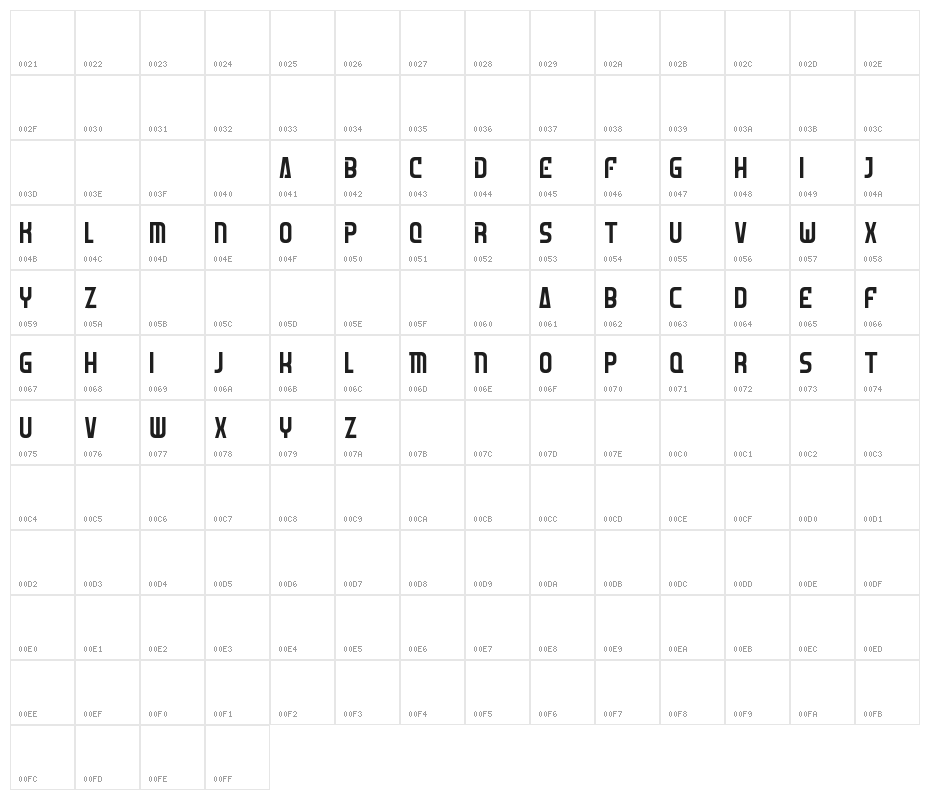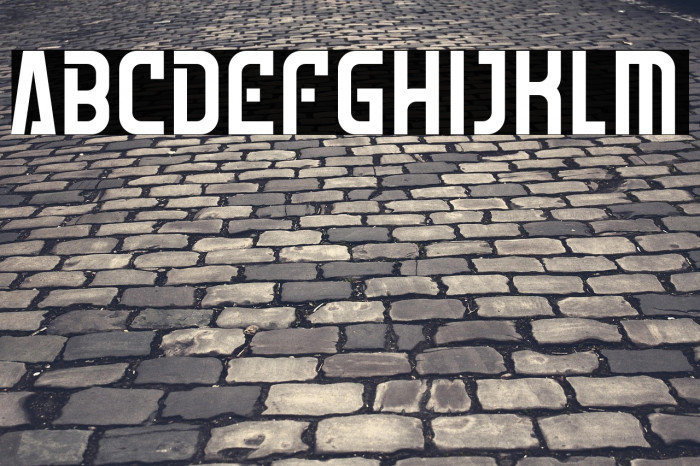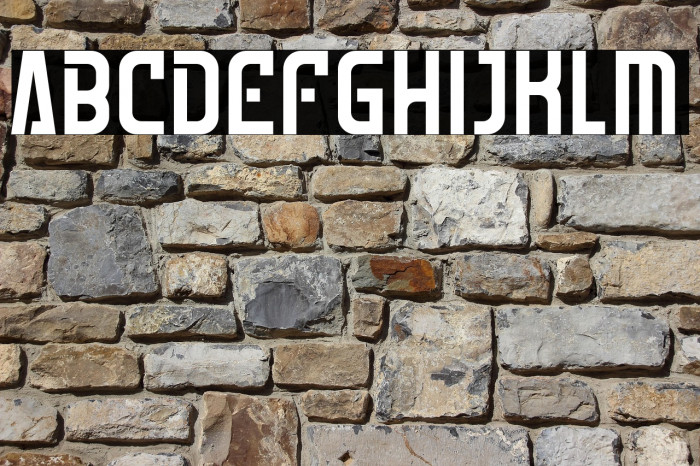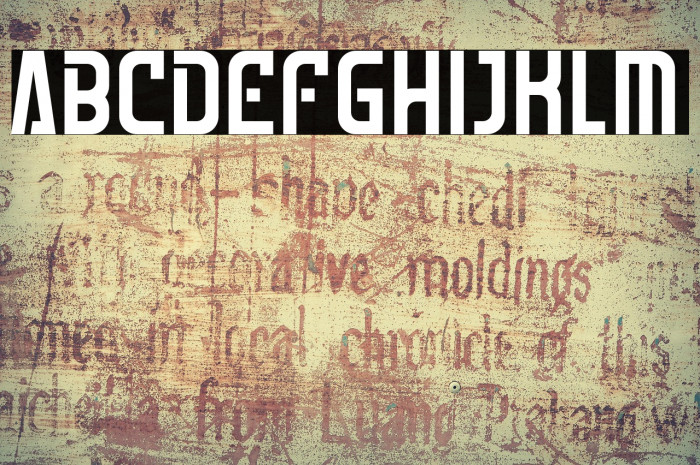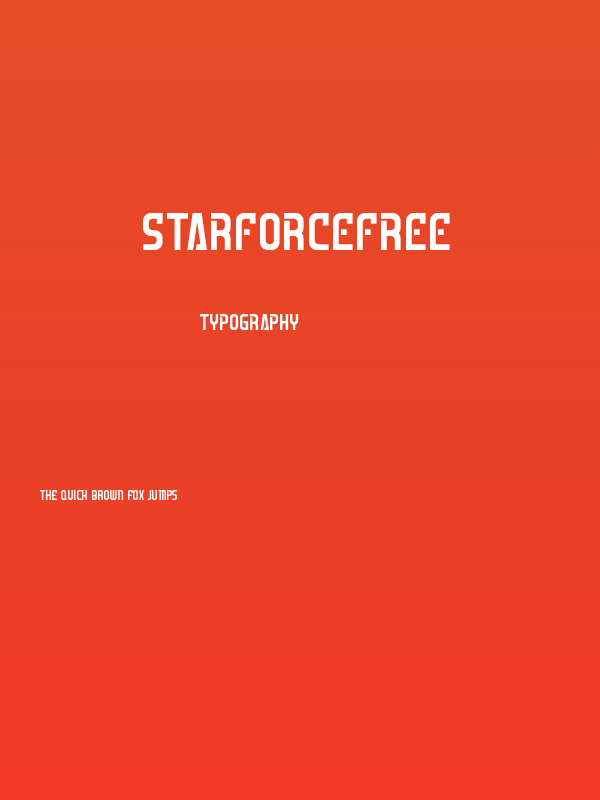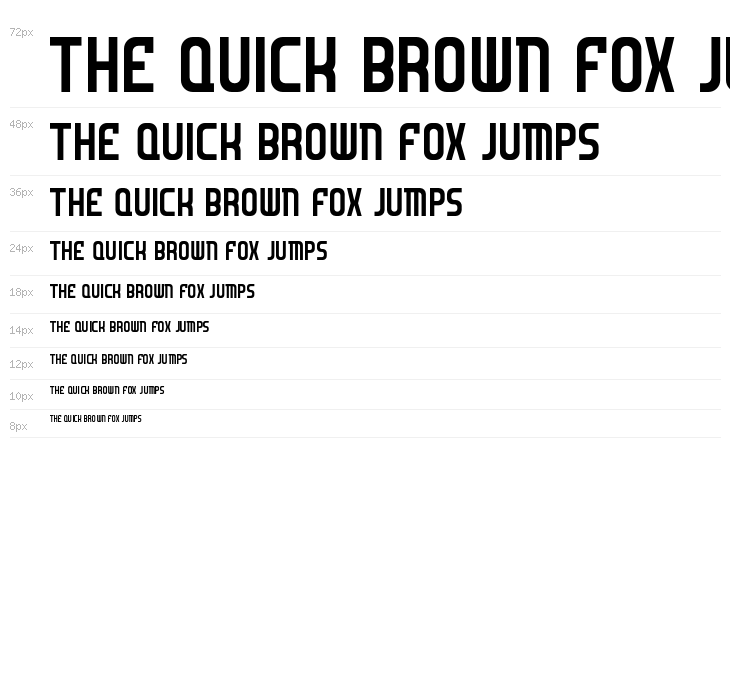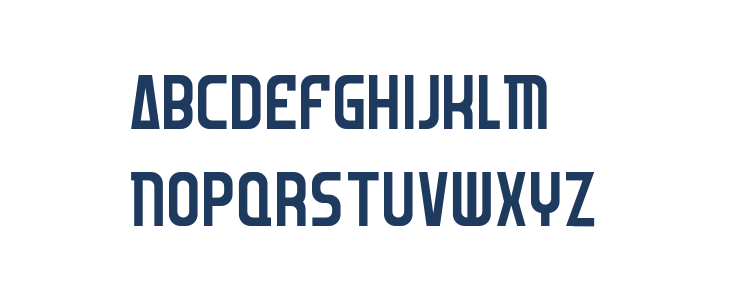
StarforceFREE Font
StarforceFREE Description
This font features a bold, geometric design with a futuristic flair. The characters are constructed with sharp angles and clean lines, giving it a modern and dynamic appearance. The uppercase letters are particularly striking, with a uniform height and width that create a cohesive look. The font's unique style is further emphasized by its slightly condensed form, which adds to its boldness and impact. The overall design is both functional and visually appealing, making it suitable for a variety of creative projects.
| Proposed Projects | Ideal for sci-fi themed designs, video game titles, posters, and branding that requires a modern and bold aesthetic. |